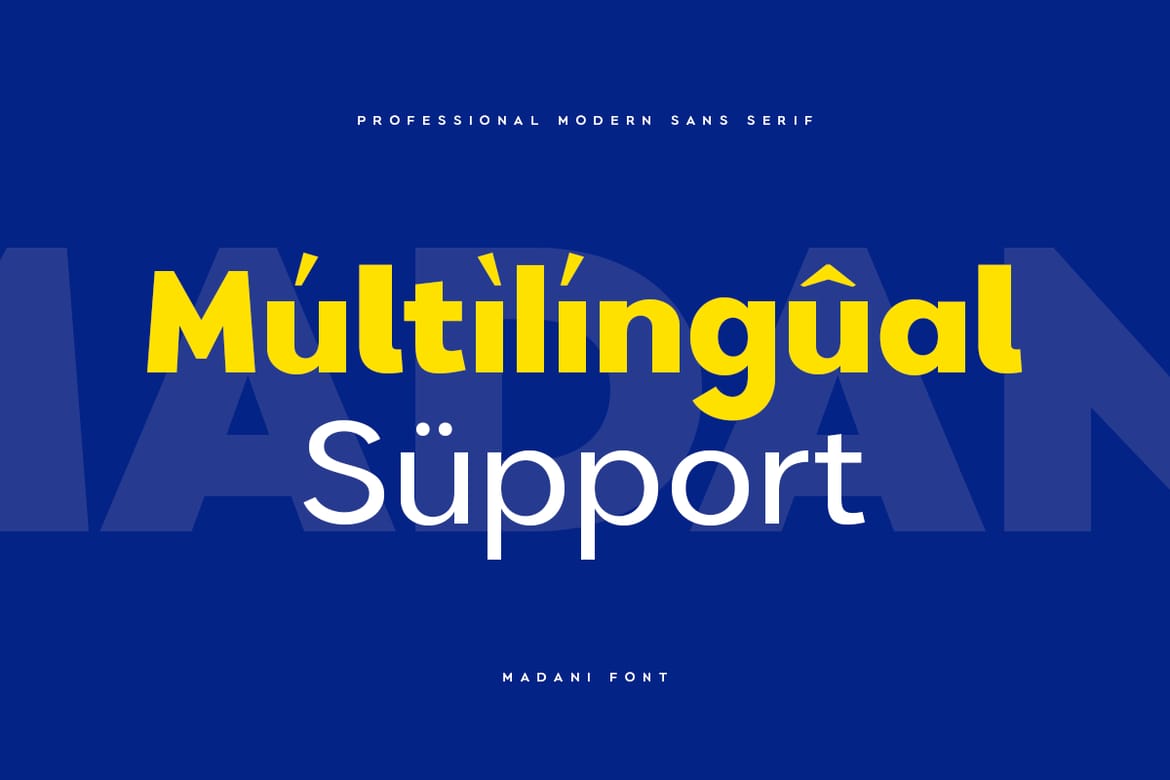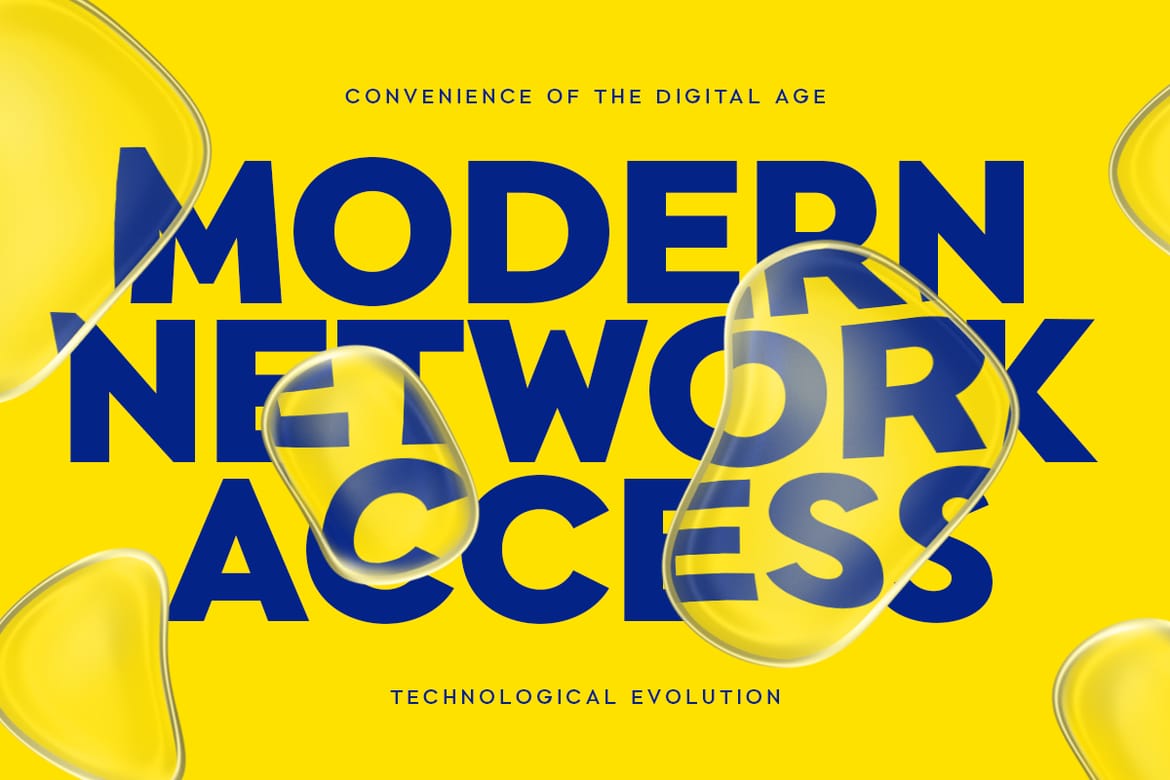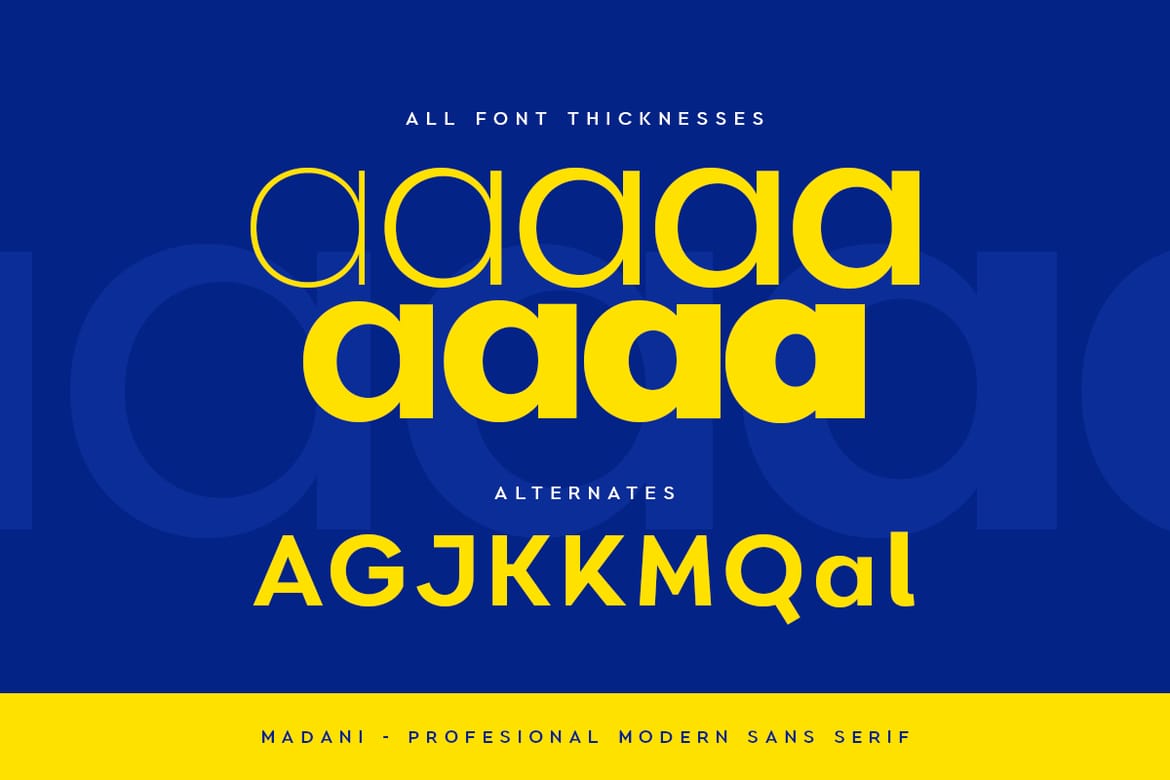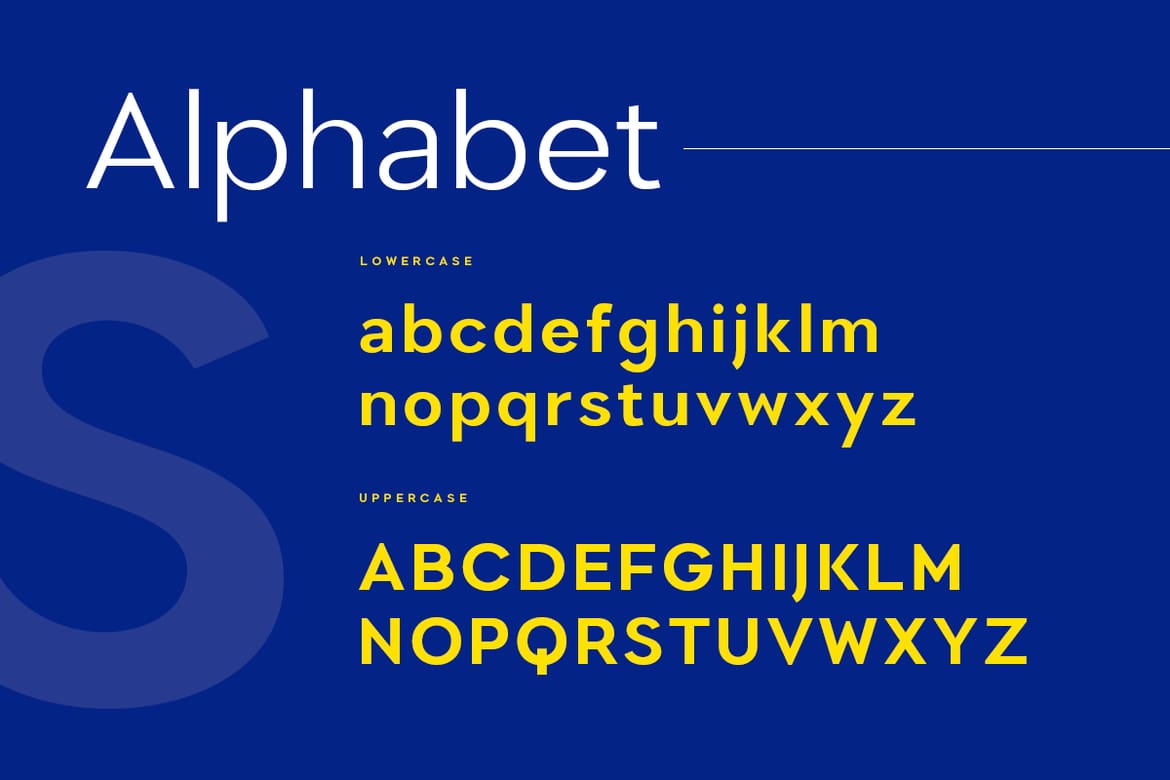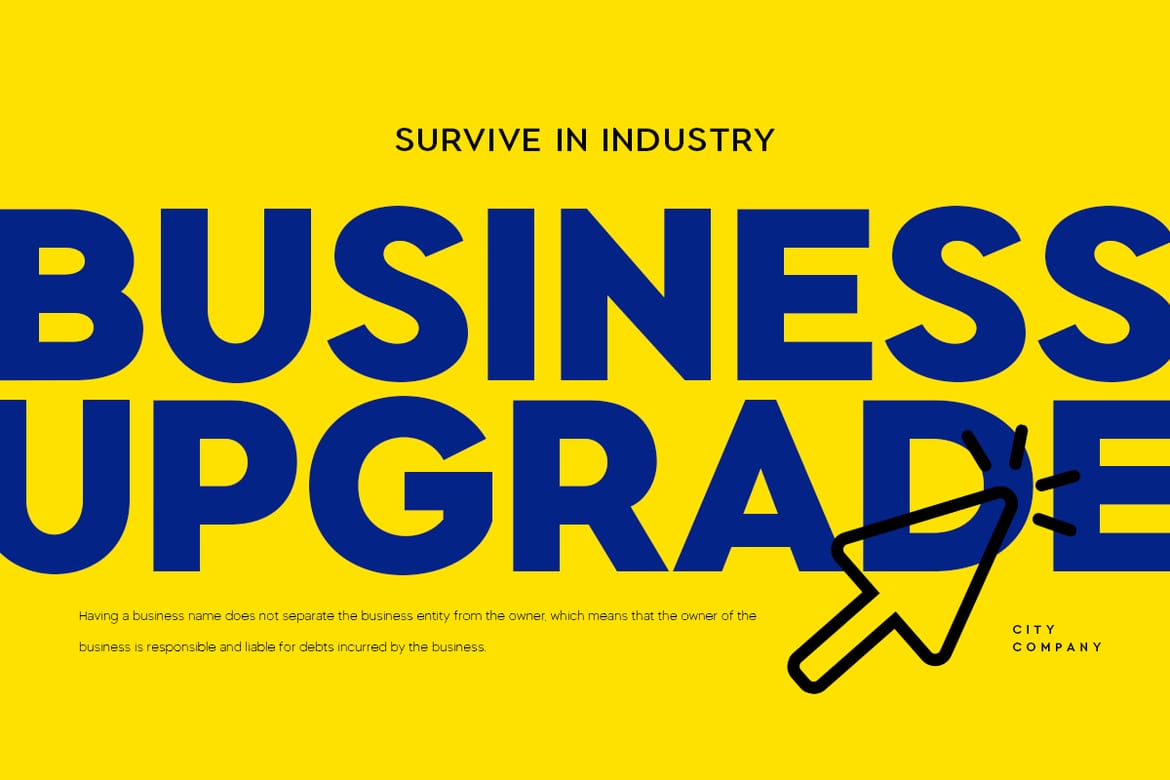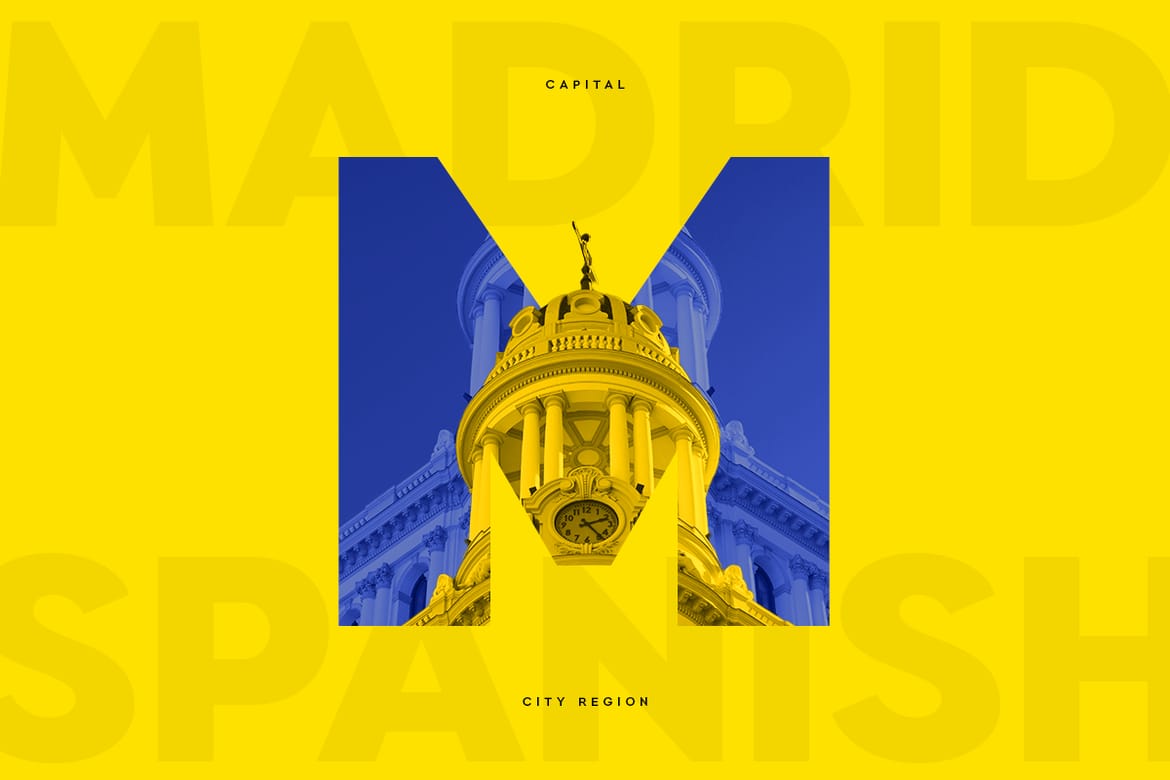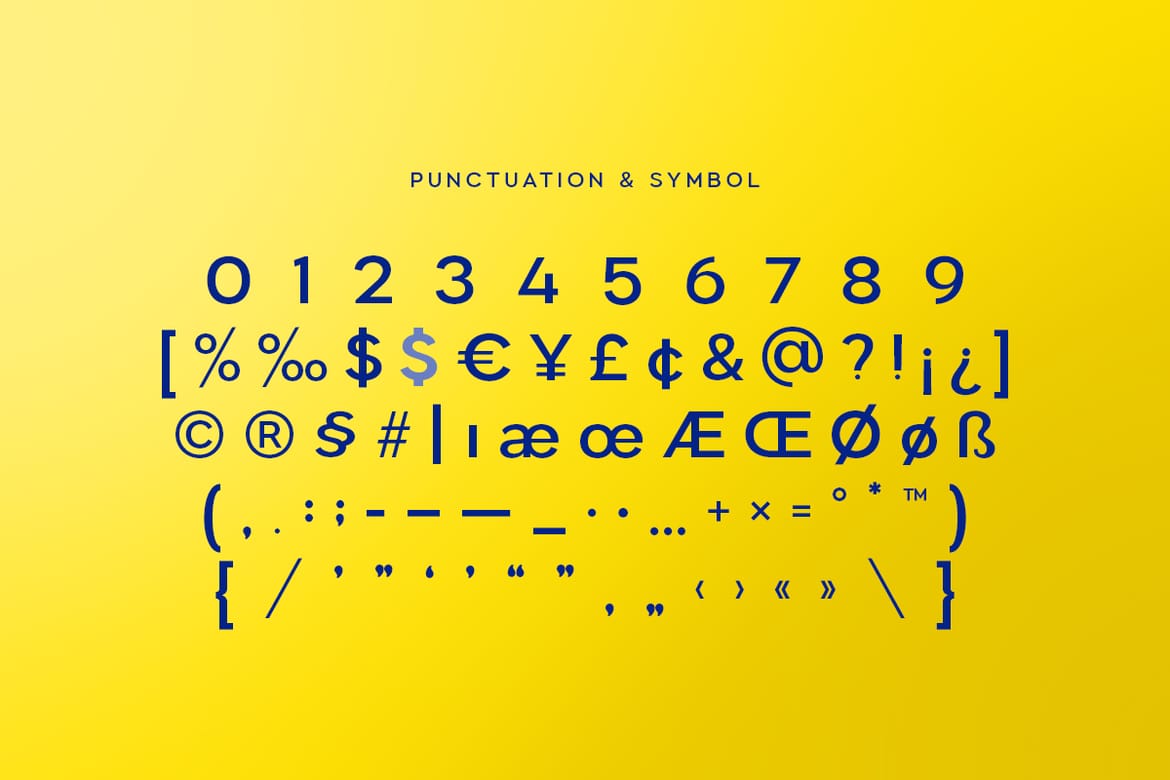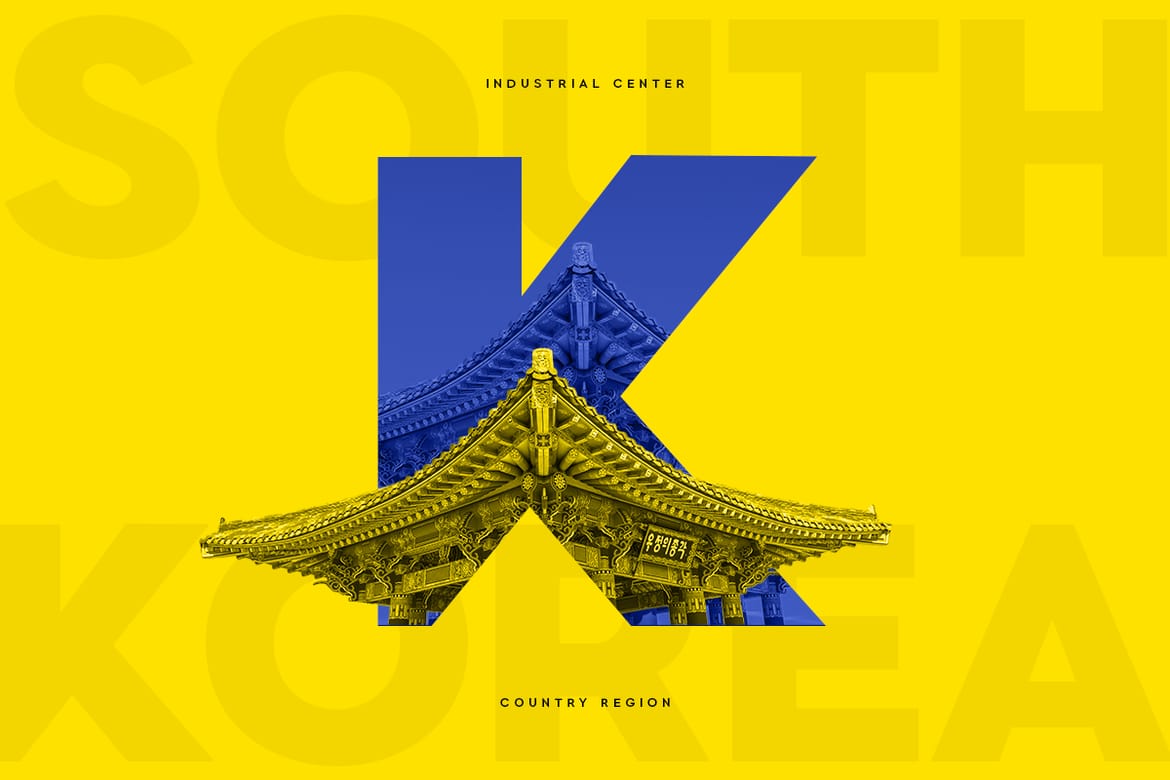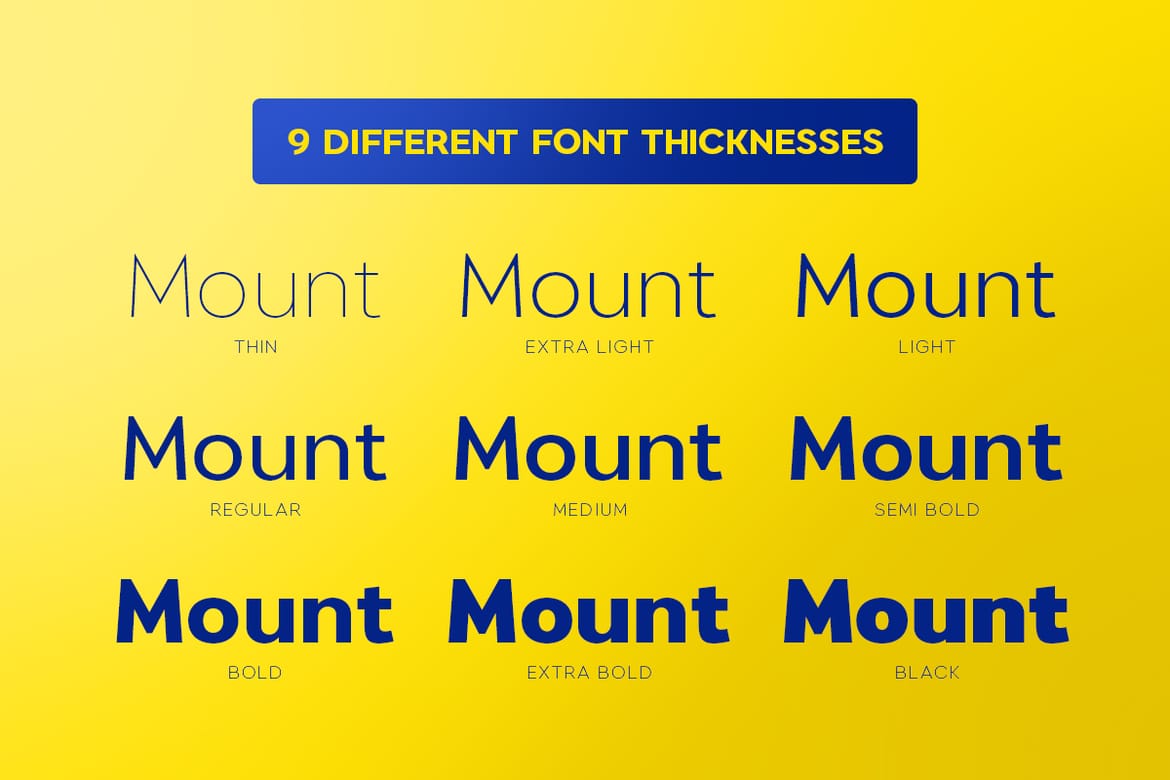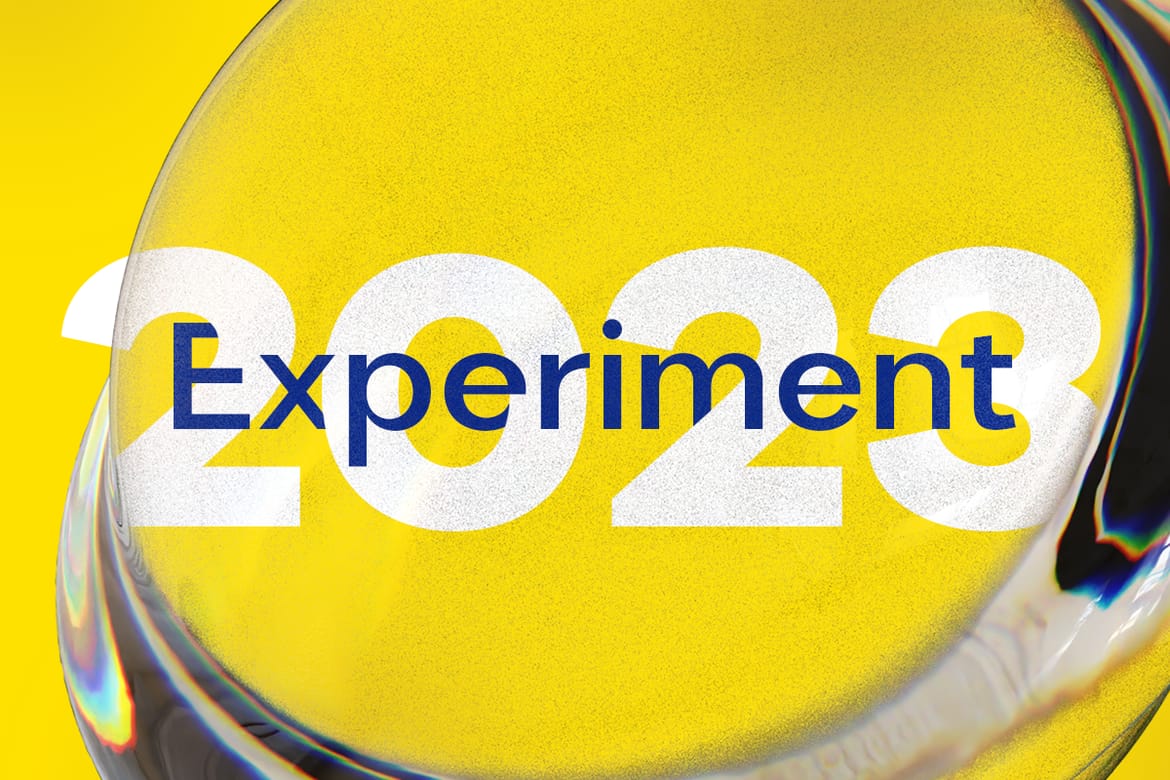
Madani - Modern Sans Serif Family
Madani is a sans serif font family with modern, corporate, elegant, unique and classy-look. This font crafted specials for logo design projects, ready to use on Logo, Branding, Magazine, Social Media, and Many more that needs modern touches. Madani is also included full set of: uppercase and lowercase letters 9 weights multilingual characters numerals punctuation What will you get for each weight? Madani.otf Madani.ttf Madani.woff2 Wish you enjoy our font.
• Modern corporate sans-serif family
• 9 weights with multilingual support